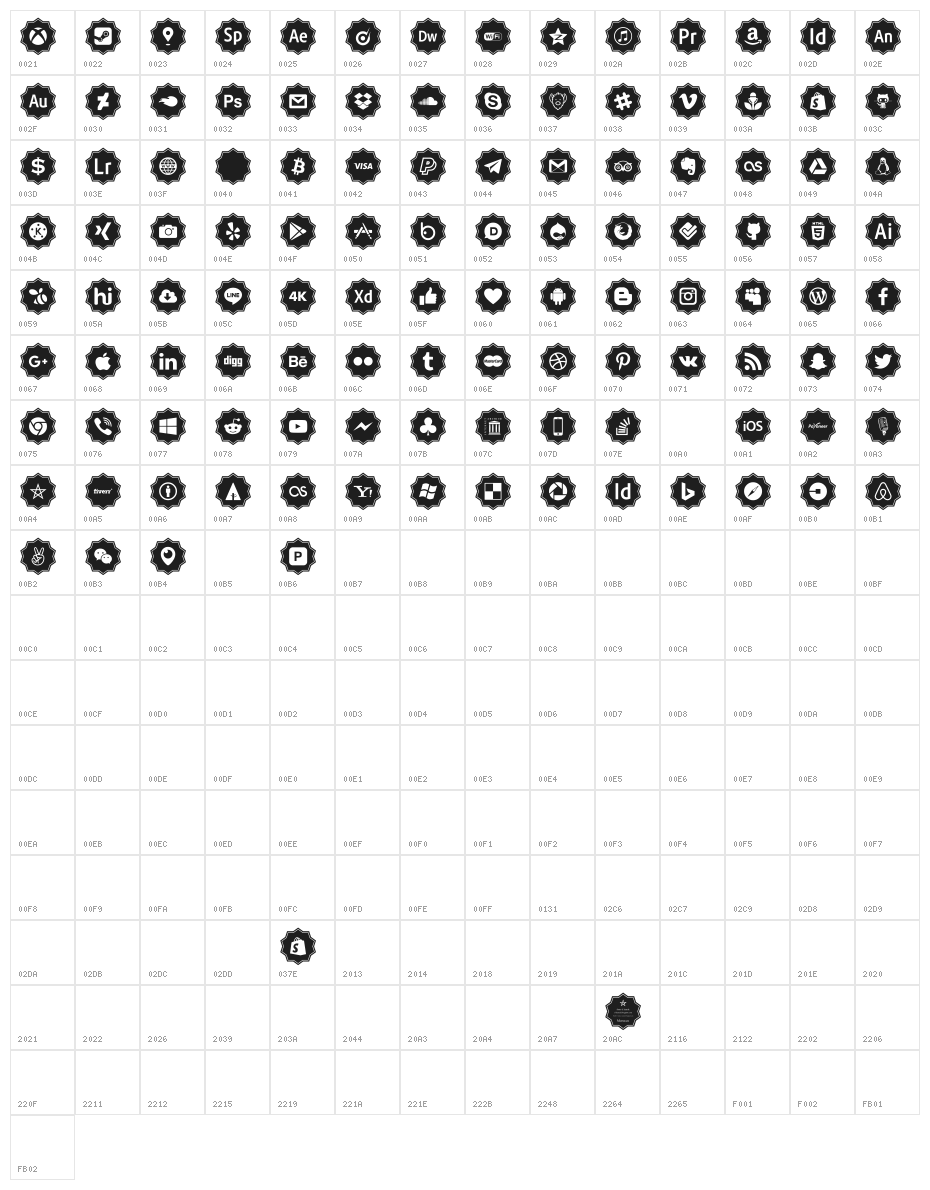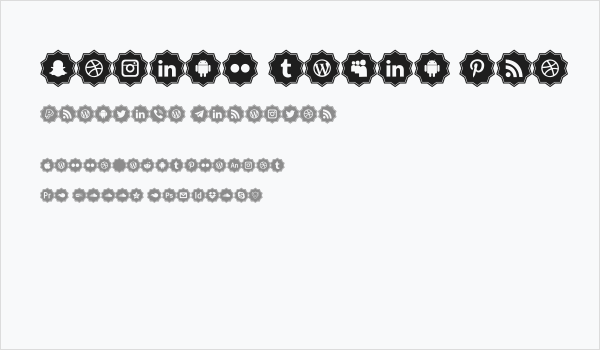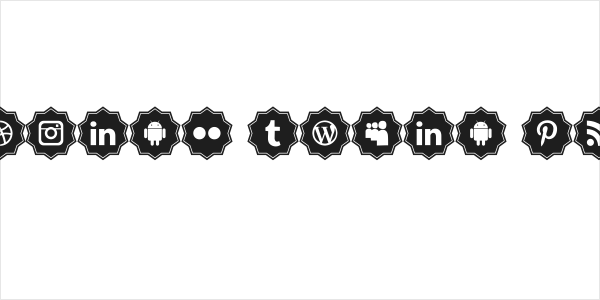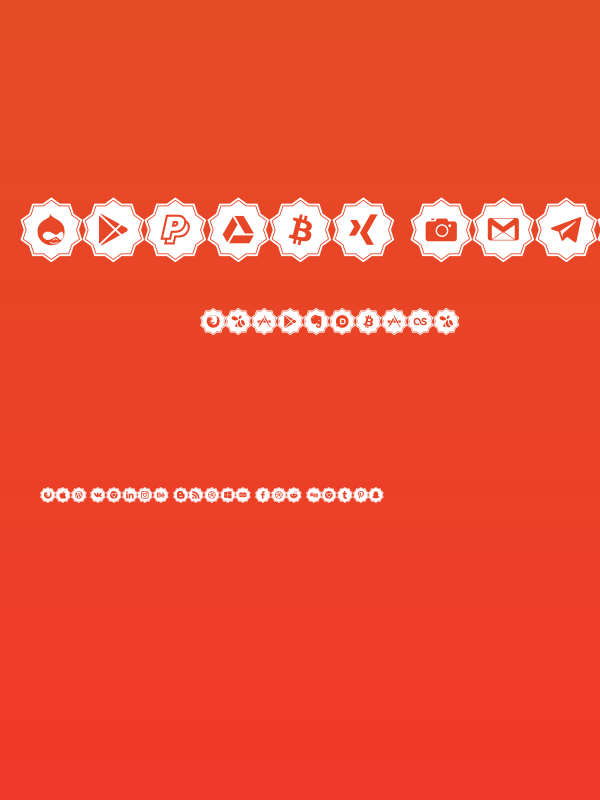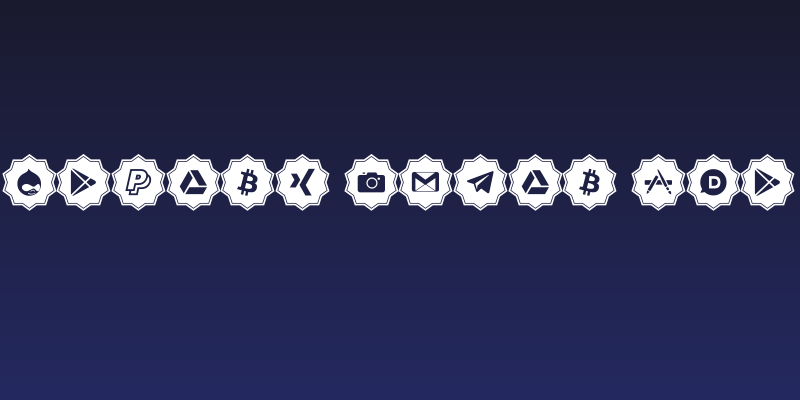
social media pro Font
social media pro Description
A set of bold, geometric, sans-serif icons enclosed in starburst badge shapes, each representing various social media, payment, and digital service platforms. The icons are white on a solid black background, creating strong contrast and high visibility.
| Use Case | Icons, UI elements, Social media links |
| Proposed Projects | Social media graphics, website footers, app interfaces, digital marketing materials. |